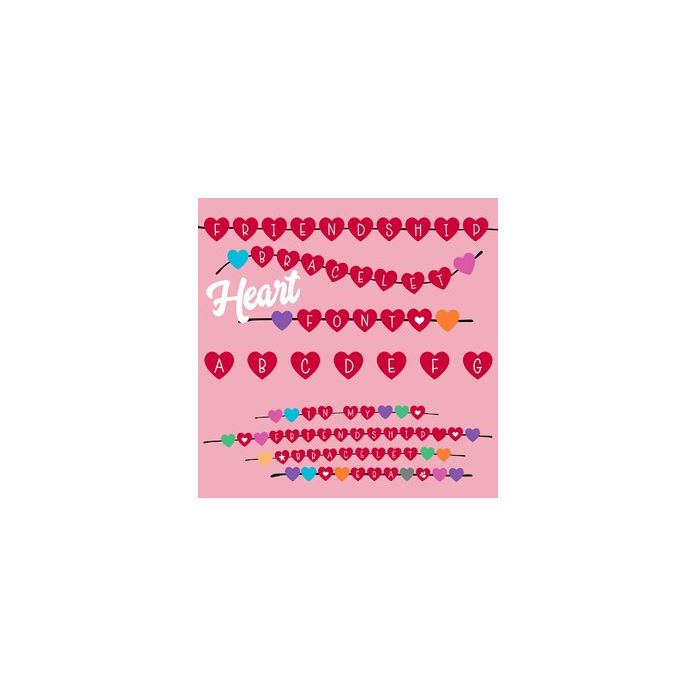
Friendship Bracelet Era Heart Font
Heart Shaped Red beads for letters also includes color beads to mix up patterns, numbers, icons and straight and wavy threads to create your own friendship bracelet words, titles and quotes.